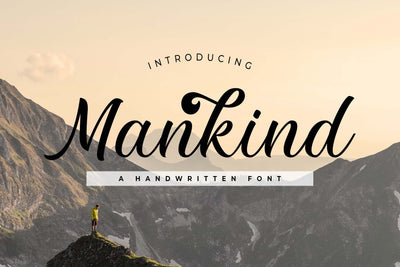
Mankind
Mankind is a magical handwritten font. It looks ravishing on invitations, thank you cards, quotes, greeting cards, logos, business cards and every other design which needs a customized touch.